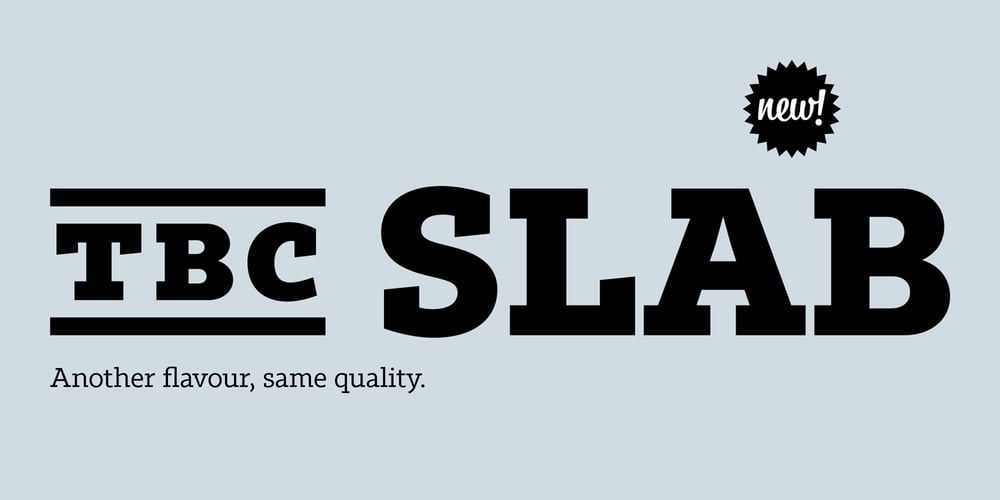
Tabac Slab Font Family was designed by Tomáš Brousil and published by Suitcase Type Foundry. Tabac Slab contains 16 styles and family package options. Tabac Slab was created by combining several contradictory influences, the result of which is a universal linear font. The combination of brisk serifs and refined calligraphic details in the structure of the characters serves to create an original concept that mixes influences from both book and advertising graphics. Serifs aid legibility in long texts, while small drawn details realise their full potential in sizes of twenty-four points and larger. The basis for our Egyptienne was Tabac Sans, with which Slab logically forms a harmonic duo. The addition of bracket-less serifs caused the typeface to thicken and become solidly anchored on the lines, giving a firm answer to all typographers who like to complain about the slight exuberance of grotesque fonts.